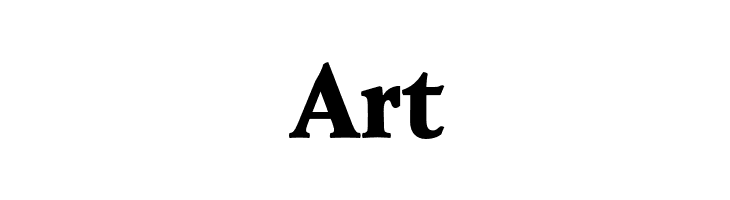
A bold, chunky font with rounded edges and a playful style.
A classic serif font with pronounced serifs and moderate contrast, ideal for formal use.
Elegant serif font with italic slant and moderate contrast.
A refined serif typeface with a slight italic slant and light weight.
A bold, italic serif font with a classic yet dynamic style.
An elegant serif font with a classic italic slant, perfect for sophisticated designs.
Elegant serif font with italic style and moderate contrast.
A classic serif font with elegant strokes and moderate contrast.
A bold, classic serif font with a modern touch, ideal for authoritative and traditional designs.
An elegant serif font with a classic italic style and refined appearance.